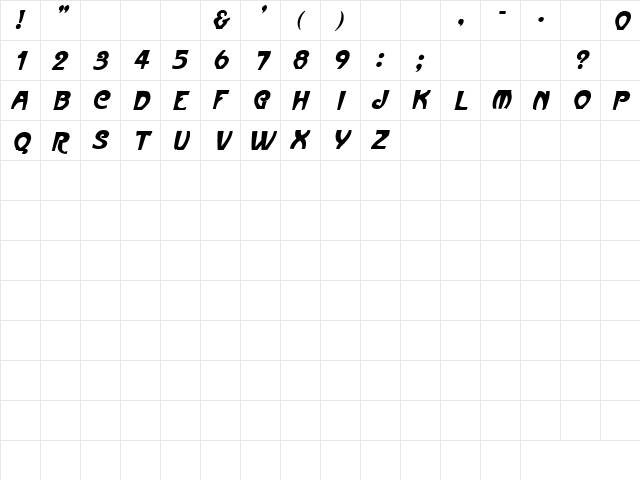
Ibanez 3 Italic
Design Context for Ibanez 3 Typeface
Ibanez 3 offers clean, dependable letterforms without strong stylistic allegiance, making it a practical choice for designers who need flexibility. Its italic angle brings a sense of urgency and motion to the letterforms.
Pro Tip: Try Ibanez 3 for annotation and caption copy alongside an upright companion — the contrast in angle creates a dynamic but ordered typographic system.